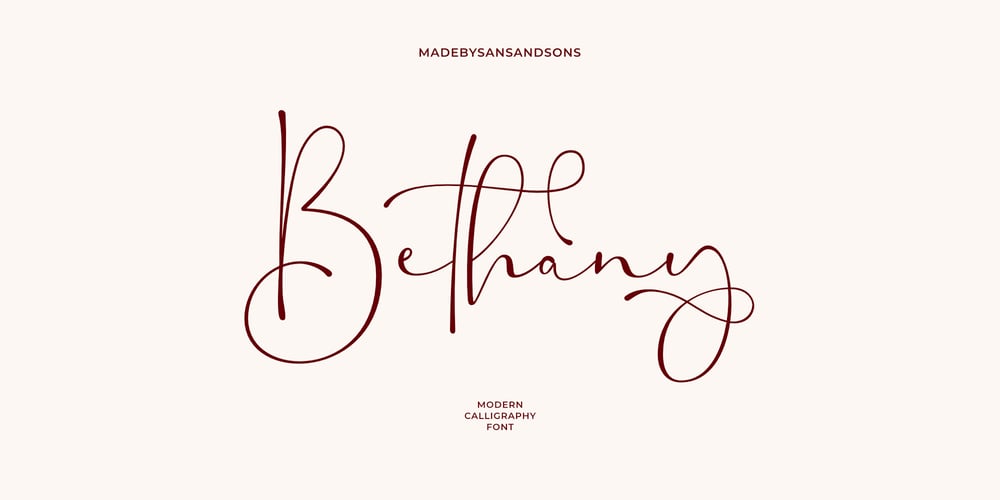
Bethany Script
Bethany Script font
Bethany Script Font Family was designed by Angga Suwista and published by Sans And Sons. Bethany Script contains 1 styles and family package options. Bethany Script is Modern Script with Elegant and Unique Style. Includes full set of uppercase and lowercase letters, multilingual symbols, numerals, punctuation, swash and alternates lettersThe font has organic smooth wet ink texture with Modern Elegant Style this is perfect for branding, logos, invitation, masterheads and more.